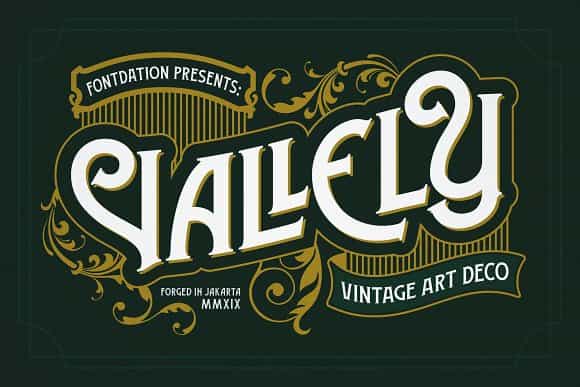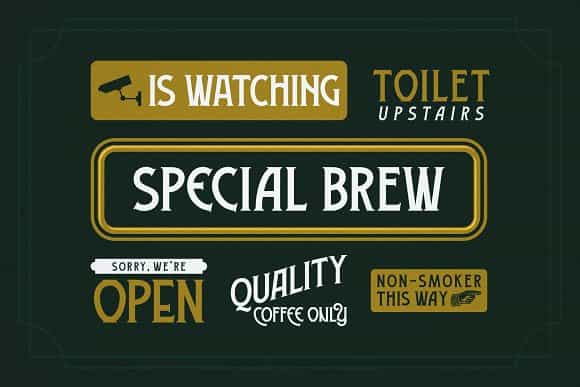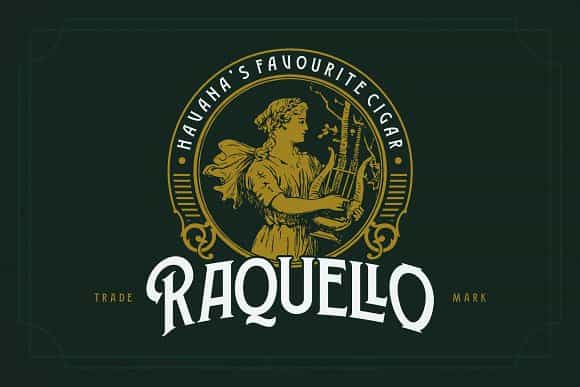
Introducing Vallely Font. It is designed and released by Twicolabs Fontdation. Vallely Vintage Font – a classic art-deco-ish serif that is inspired by the old typography/letterings used in packaging labels and advertisements.